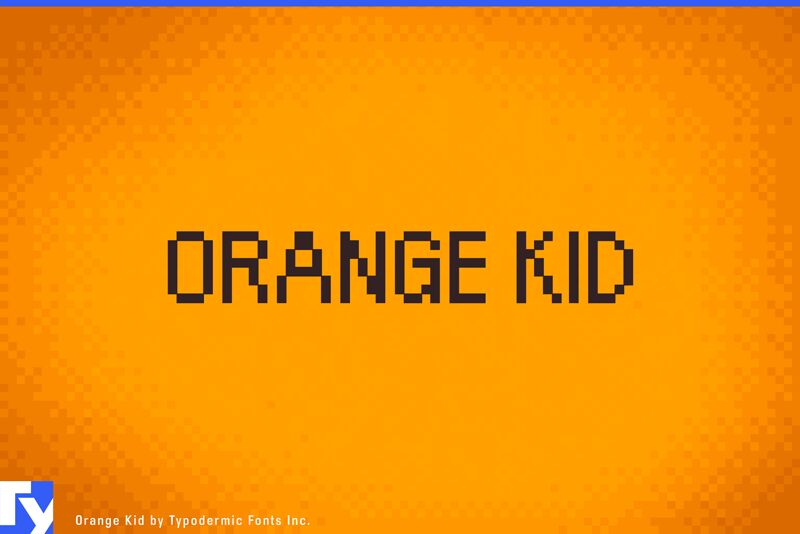
Orange Kid is a pixel font inspired by Earthbound, a classic video game. Allow its genuine love to permeate your message with its charming innocence. Most Latin-based European writing systems are supported, including the following languages. Afaan Oromo, Afar, Afrikaans, Albanian, Alsatian, Aromanian, Aymara, Bashkir (Latin), Basque, Belarusian (Latin), Bemba, Bikol, Bosnian, Breton, Cape Verdean, Creole, Catalan, Cebuano, Chamorro, Chavacano, Chichewa, Crimean Tatar (Latin), Croatian, Czech, Danish, Dawan, Dholuo, Dutch, English, Estonian, Faroese, Fijian, Filipino, Finnish, French, Frisian, Friulian, Gagauz (Latin), Galician, Ganda, Genoese, German, Greenlandic, Guadeloupean Creole, Haitian Creole, Hawaiian, Hiligaynon, Hungarian, Icelandic, Ilocano, Indonesian, Irish, Italian, Jamaican, Kaqchikel, Karakalpak (Latin), Kashubian, Kikongo, Kinyarwanda, Kirundi, Kurdish (Latin), Latvian, Lithuanian, Lombard, Low Saxon, Luxembourgish, Maasai, Makhuwa, Malay, Maltese, Māori, Moldovan, Montenegrin, Ndebele, Neapolitan, Norwegian, Novial, Occitan, Ossetian (Latin), Papiamento, Piedmontese, Polish, Portuguese, Quechua, Rarotongan, Romanian, Romansh, Sami, Sango, Saramaccan, Sardinian, Scottish Gaelic, Serbian (Latin), Shona, Sicilian, Silesian, Slovak, Slovenian, Somali, Sorbian, Sotho, Spanish, Swahili, Swazi, Swedish, Tagalog, Tahitian, Tetum, Tongan, Tshiluba, Tsonga, Tswana, Tumbuka, Turkish, Turkmen (Latin), Tuvaluan, Uzbek (Latin), Venetian, Vepsian, Vro, Walloon, Waray-Waray, Wayuu, Welsh, Wolof, Xhosa, Yapese, Zapotec Zulu and Zuni.